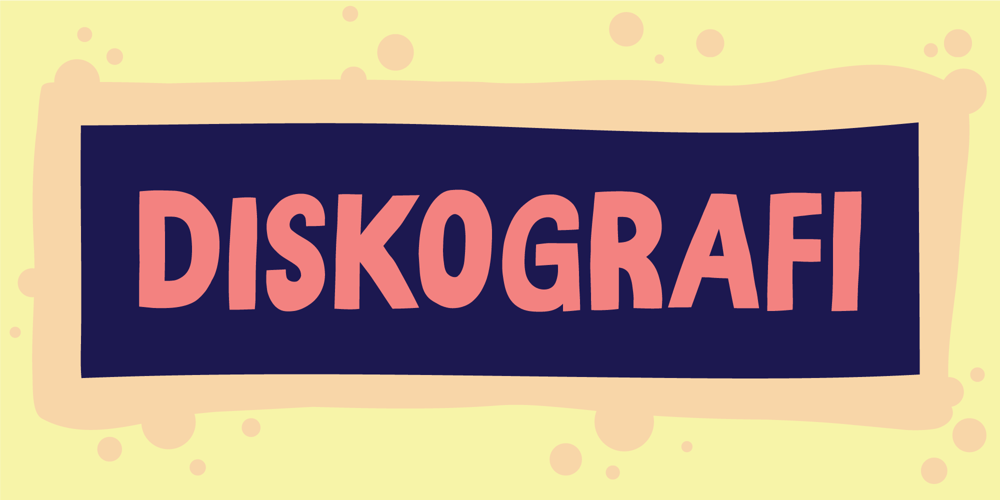
Diskografi Font Family was designed by Jakob Fischer and published by PizzaDude.dk. Diskografi contains 2 styles and family package options. For some time now, I have made plans about buying some LP records. It may sound odd, because I don’t own a record player – but I want the LP’s as a kind of poster on my wall.Nowadays, I just stream the music, but “back in the days” I did put the record on my record player, in order to listen to the music.Diskografi is my take on a comic/grafitti headline font – easy going like De La Soul and nice like REM. I made 6 slightly different versions of each letter and made sure that there is multilingual support as well!